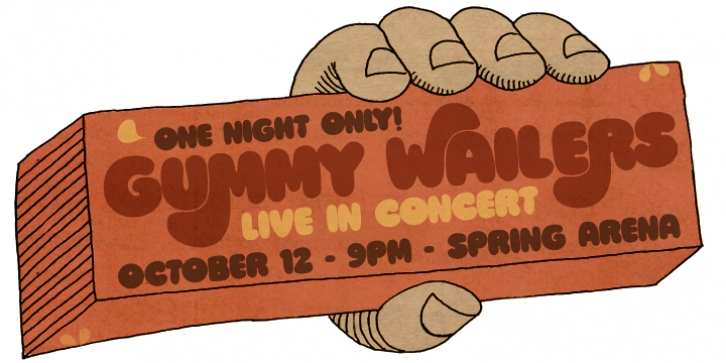
Ziclets is a comic, retro and kids font published by PintassilgoPrints.
A fresh font for juicy designs and psychedelic minds, seasoned with yummy opentype features!